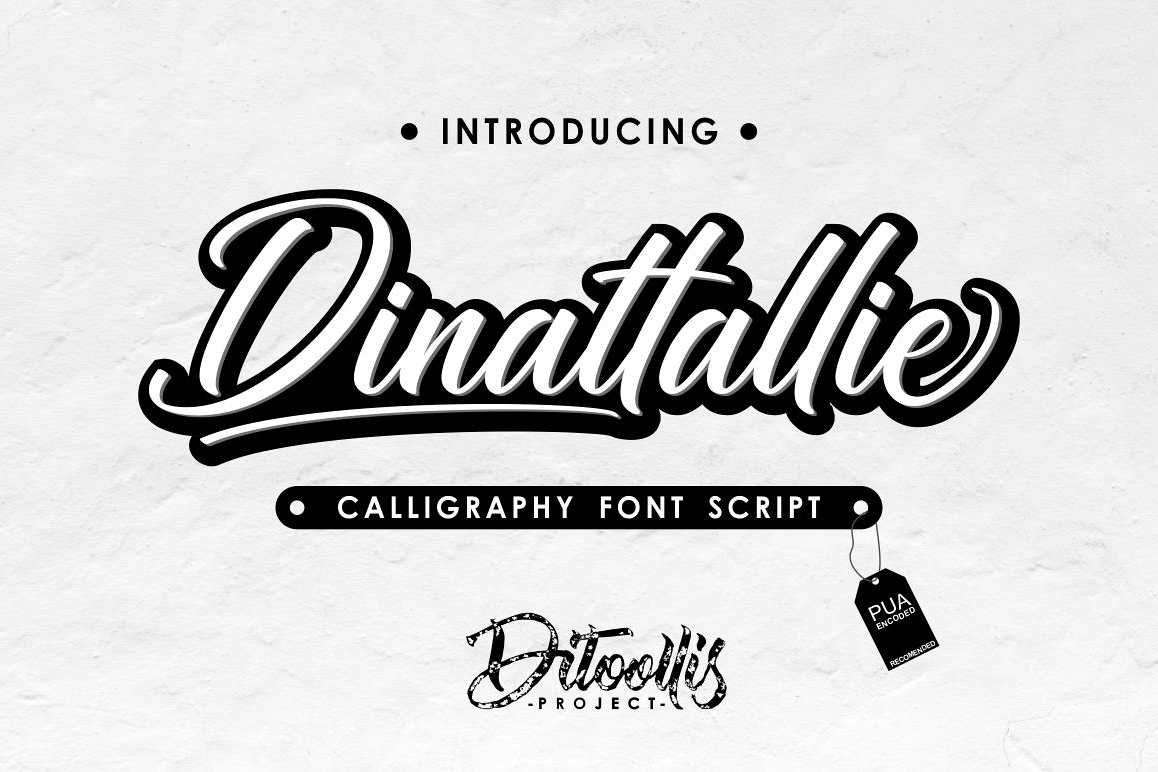
Dinattallie
Dinattallie Swash
Dinattallie
Introducing "Dinattallie"
This font, an elegant, modern and cool font.
font that is very suitable to use for your design.
This font is also complete
-
- Numeric
and there are also
-
Swash
-  Alternates
-  Ligatures
ok that's a brief explanation of the "Dinattallie"
font.